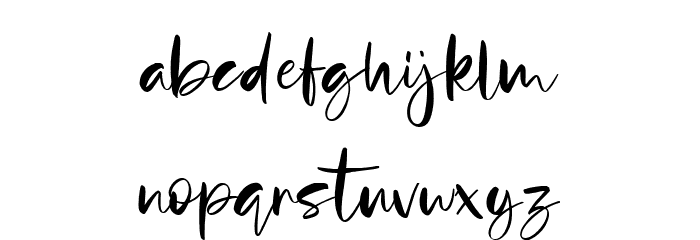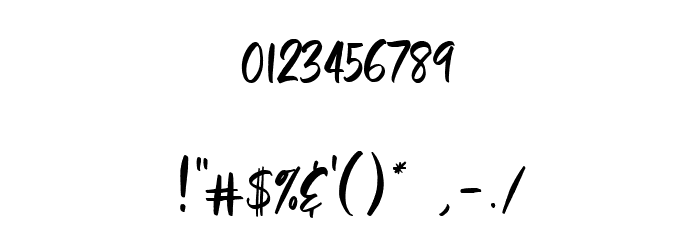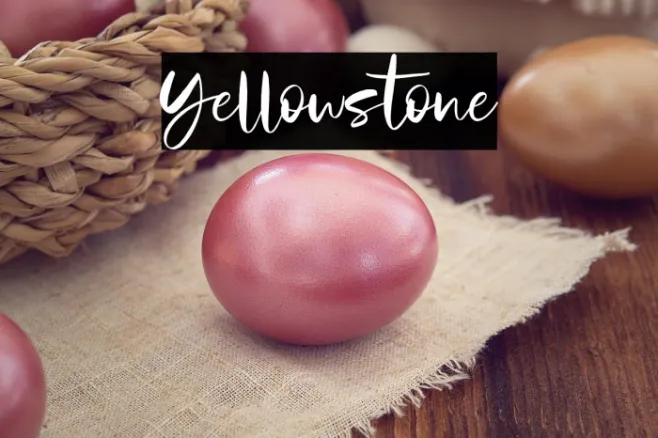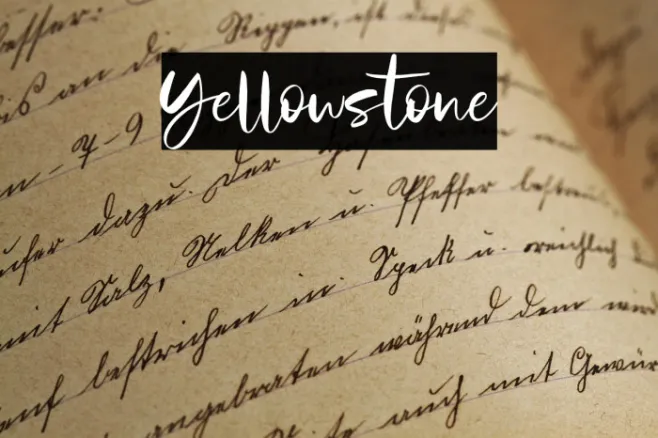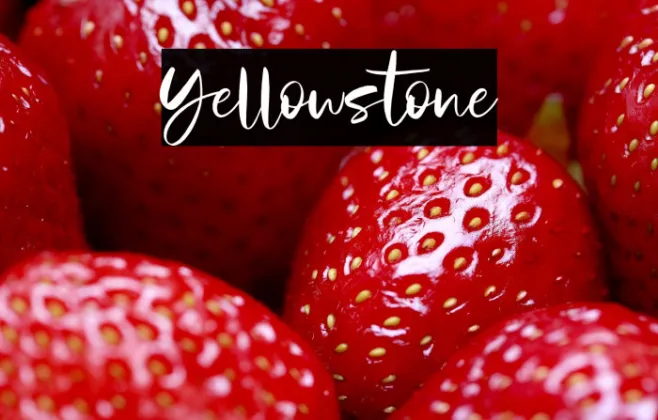
Yellowstone Font
This font exudes a lively and expressive handwritten style, characterized by its fluid and dynamic strokes. The uppercase letters are bold and slightly irregular, giving a sense of spontaneity and creativity. The lowercase letters maintain a consistent flow, with some characters featuring playful loops and curves. The numerals are clear and legible, while the special characters complement the overall aesthetic with their unique flair. This font captures a sense of personal touch and artistic expression, making it ideal for projects that require a humanistic and approachable feel.
A lively and expressive handwritten font with dynamic strokes.
- Proposed Projects: Ideal for greeting cards, invitations, personal branding, and creative projects that require a personal touch.
- Use Case: Logos, Headlines, Creative projects